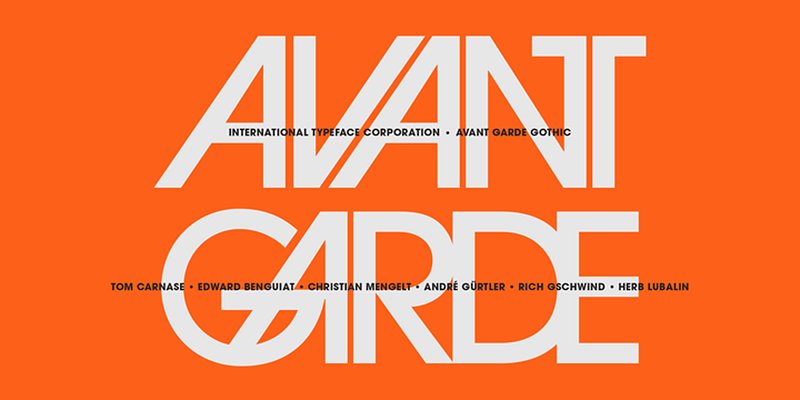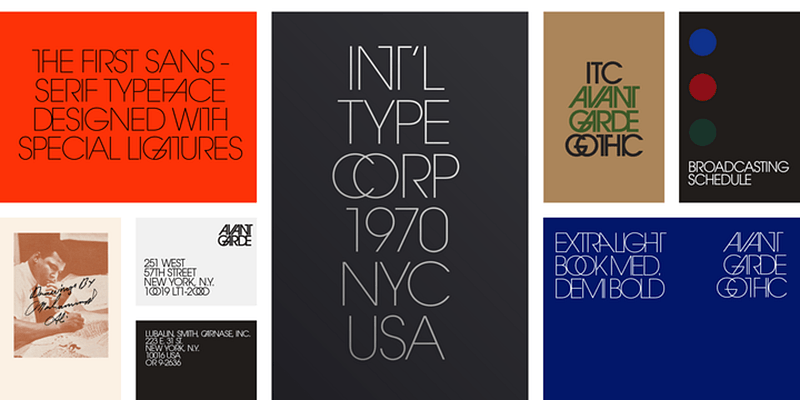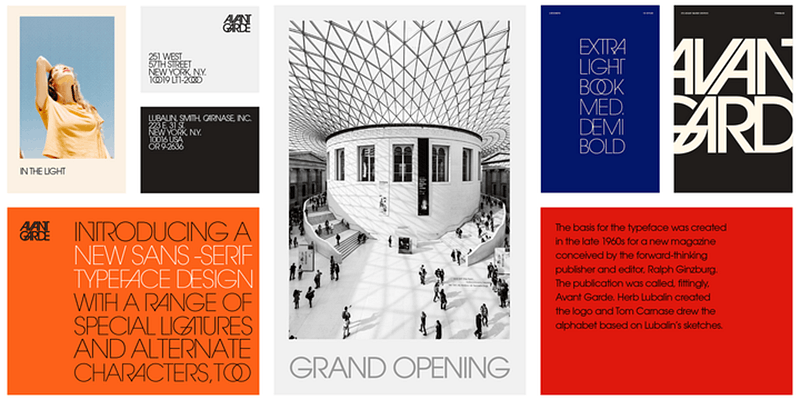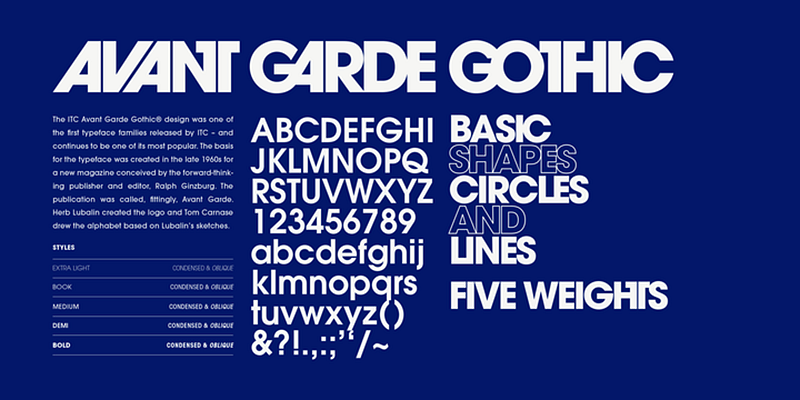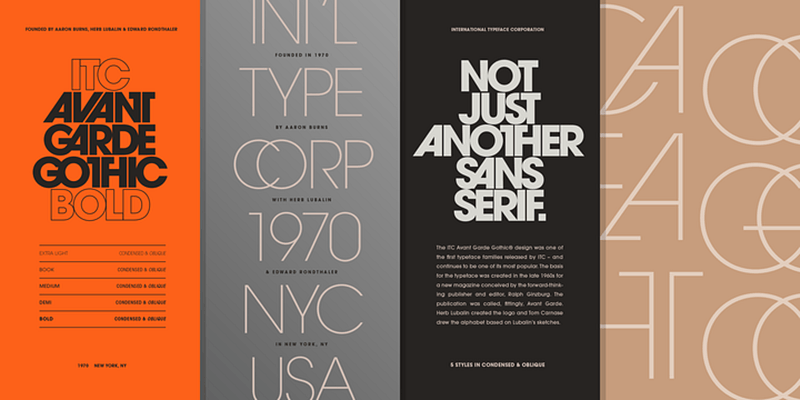
Herb Lubalin and Tom Carnase based their 1970 design of ITC Avant Garde Gothic on Lubalin’s logo for Avant Garde Magazine. The condensed fonts were designed for the International Typeface Corporation in 1974 by Ed Benguiat. ITC Avant Garde Gothic is a geometric sans serif type, that is, the basic shapes were made with a compass and T-square; the design is reminiscent of the work from the 1920s German Bauhaus movement. Letterforms built of circles and clean lines are highly effective for headlines and short texts.